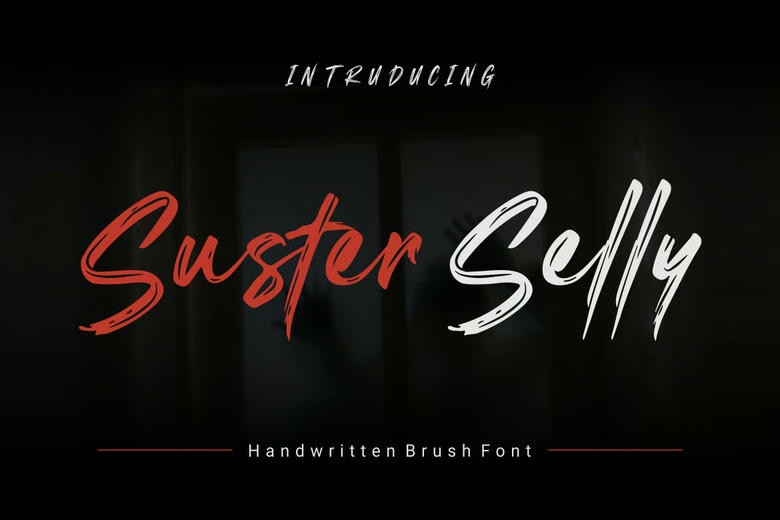
SusterSelly Font
Susterselly Handwritten Brush Font combines a modern serif style with classic details for a bold look. Its clean lines and subtle ligatures make it a great choice for branding, fashion magazines, and luxury packaging.
The font includes uppercase and lowercase letters, alternates, ligatures, numbers, and punctuation. Susterselly is well-suited for luxury branding, magazine headlines, packaging, and logo design.
SusterSelly Handwritten Brush Font